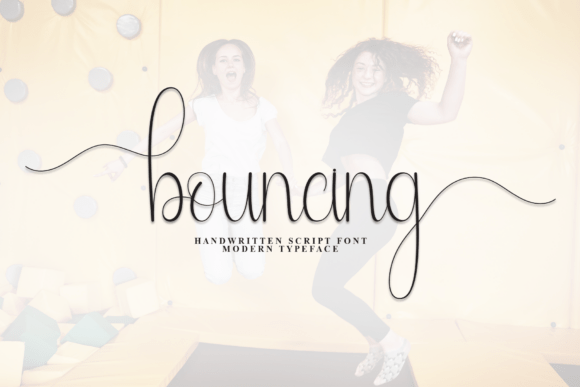
Find Your Flow: The Elegance of Bouncing Font
Have you ever been stuck in a design rut, unable to find the perfect font to bring your vision to life? You’re not alone. As creatives, we’ve all been there – pouring over font libraries, searching for that elusive combination of style and sophistication. And then, it happens: you stumble upon Bouncing Font, a stunning handwritten script that effortlessly captures the essence of elegance and fluidity.
This versatile typeface is perfect for branding, invitations, and creative projects where a personal touch is essential. With its smooth, flowing strokes, Bouncing Font adds a touch of modernity to any design, making it a valuable asset for designers seeking to elevate their work. Whether you’re a seasoned pro or a budding artist, Bouncing Font is sure to inspire your next creative project.
Bouncing Font Key Features
- Font Family: Bouncing Font is a unique, hand-drawn font with a playful and energetic feel. It comes in a single font family with various styles.
- Character Set: The font includes a wide range of characters, including uppercase and lowercase letters, numbers, punctuation marks, and special characters.
- Unique Characteristics: The font’s bouncy, hand-drawn feel is its most distinctive feature, making it perfect for designs that require a playful and whimsical touch.
Bouncing Font Review
First off, I have to say that I love the playful vibe of the Bouncing Font. ✨ The way it moves and bounces across the screen is really fun and engaging. It’s perfect for use in apps, games, and other interactive experiences where you want to create a sense of energy and dynamism. The font is also highly customizable, allowing you to adjust the speed, size, and style to fit your needs.
- Playful and engaging: The Bouncing Font is a great choice for apps and games where you want to create a sense of energy and fun.
- Highly customizable: You can adjust the speed, size, and style of the font to fit your needs.
That being said, there are a few limitations to the Bouncing Font. ⚠️ For one, it may not be the best choice for use in formal or professional settings, as it can come across as a bit too playful and immature. Additionally, the font may not be as readable at smaller sizes, which could make it difficult to use in certain contexts. Finally, the font may require a bit of tweaking to get it to work perfectly on all devices.
Overall, I think the Bouncing Font is a fun and creative option for designers who want to add some energy and playfulness to their projects. While it may have a few limitations, it’s definitely worth considering for use in the right context.
For the best results, use Bouncing Font on short text phrases or single words. It’s ideal for headings, titles, or social media posts. You can also use it to create a playful and dynamic effect on product labels or packaging.
Remember to adjust the settings to match your design’s style and tone. Experiment with different font sizes, colors, and effects